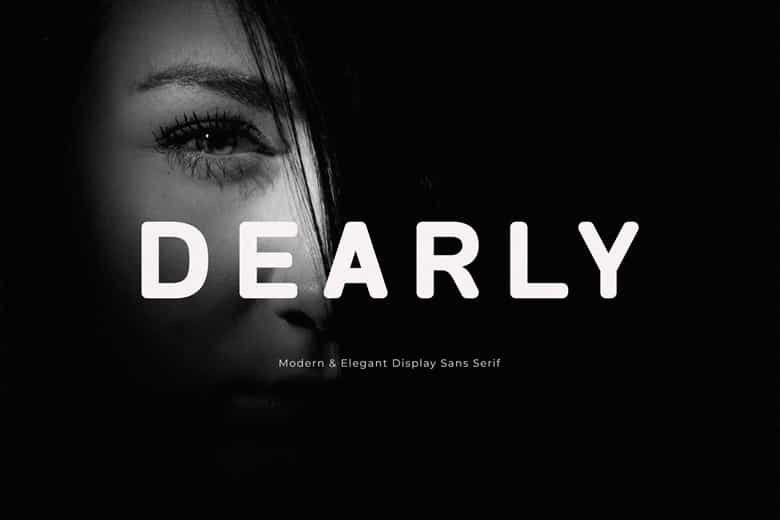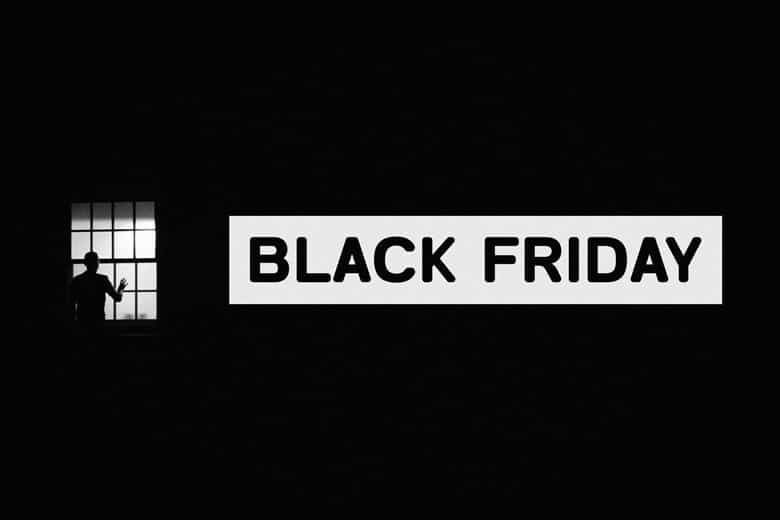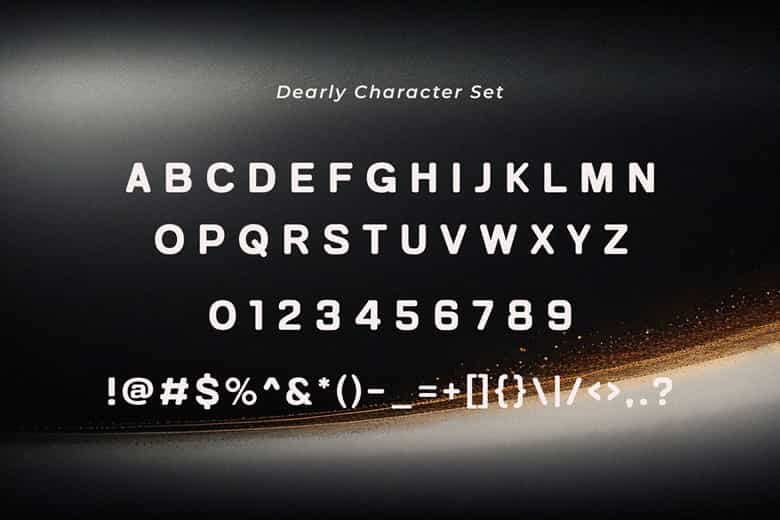
Dearly is a modern display sans serif font created by Typeformers with a minimalistic design. Its clean and simple characters look sophisticated and elegant with balanced and well proportioned layout and are good for any design projects. The font is great for professional and stylish branding, advertising and web design.